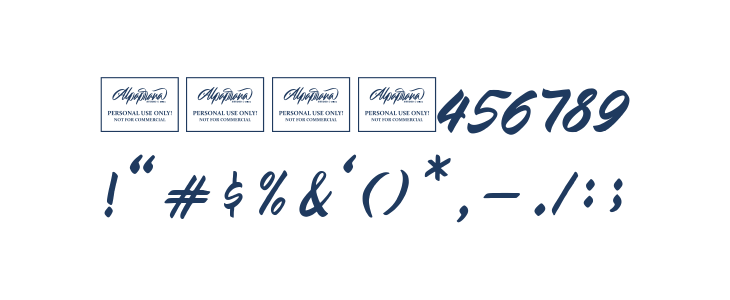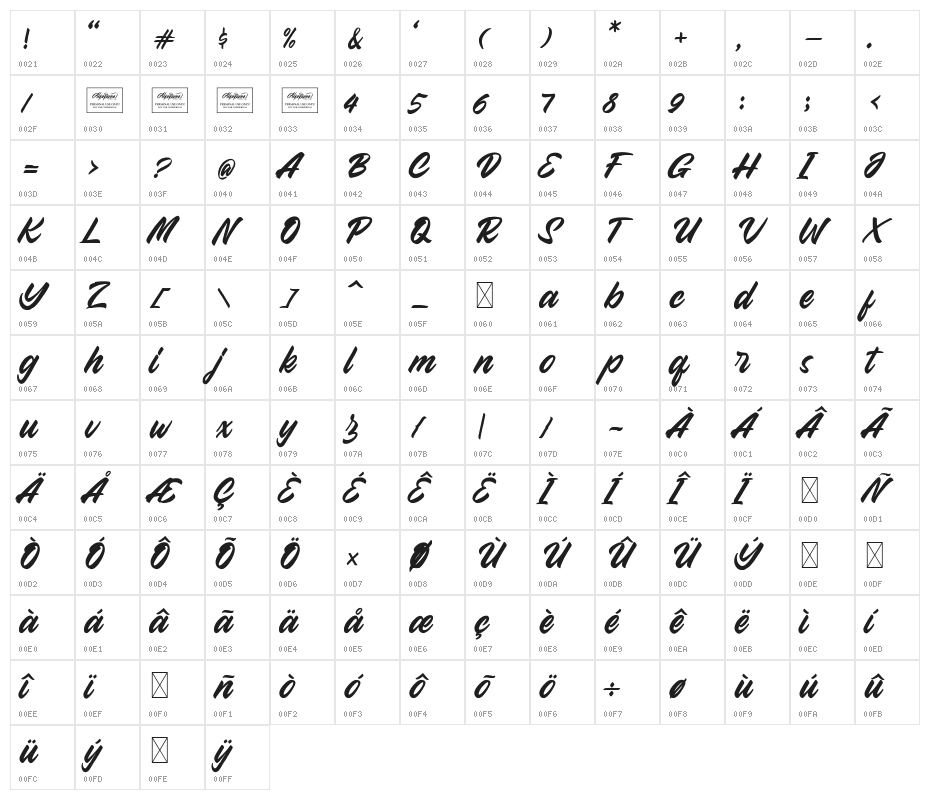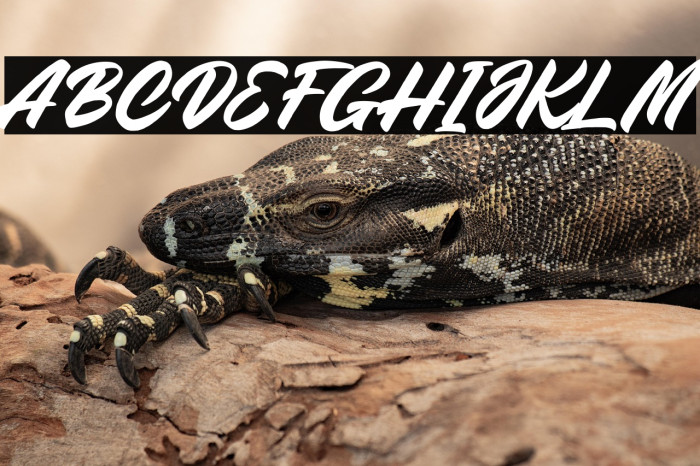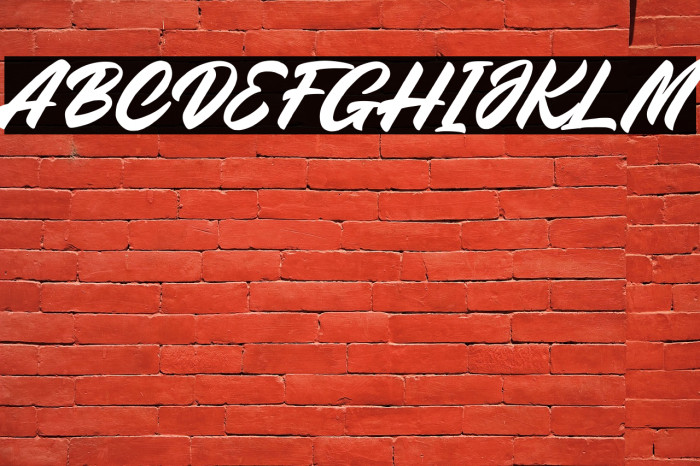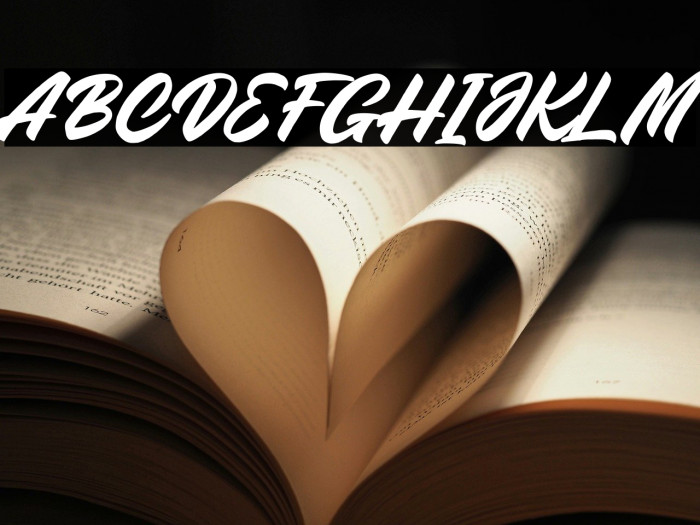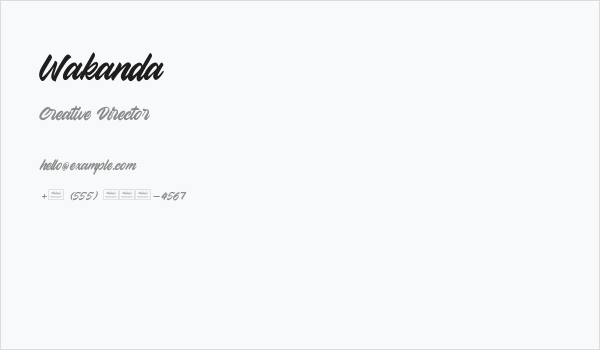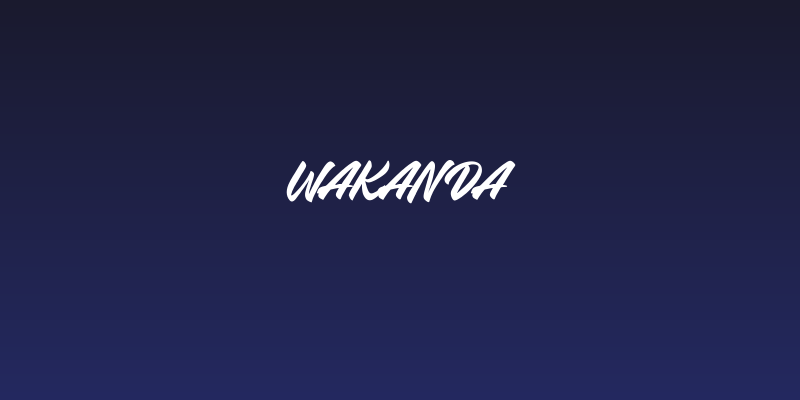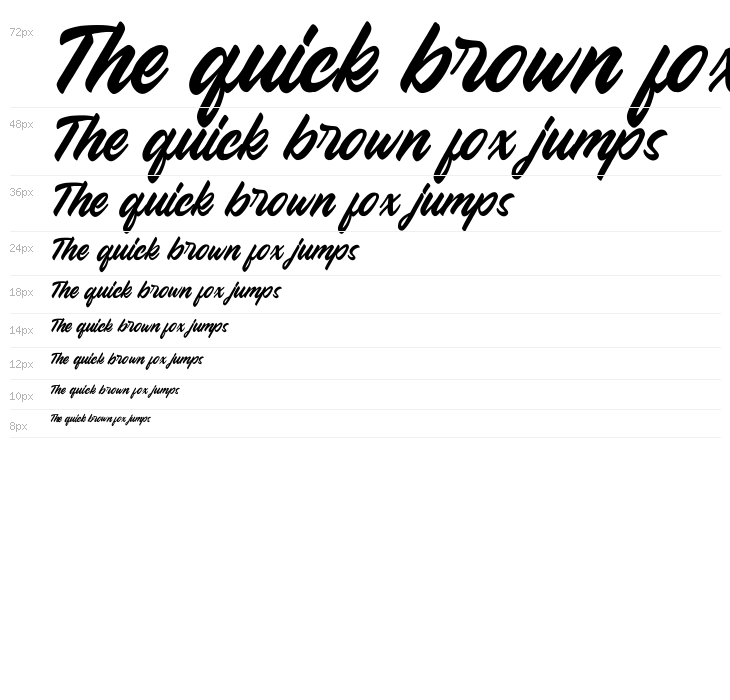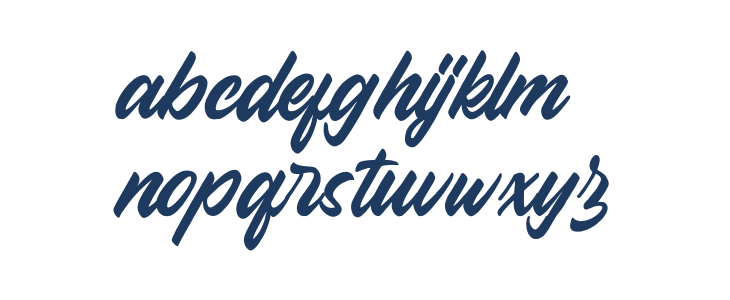
Wakanda Font
Wakanda Description
This font features a bold, flowing script style that exudes elegance and dynamism. The characters are interconnected, creating a seamless and fluid appearance. The strokes are thick and consistent, providing a strong visual impact. The uppercase letters are slightly more structured, while the lowercase letters maintain a casual, handwritten feel. This font is ideal for creating a personal and artistic touch in design projects. The numbers and special characters are designed to match the overall style, ensuring a cohesive look across all elements.